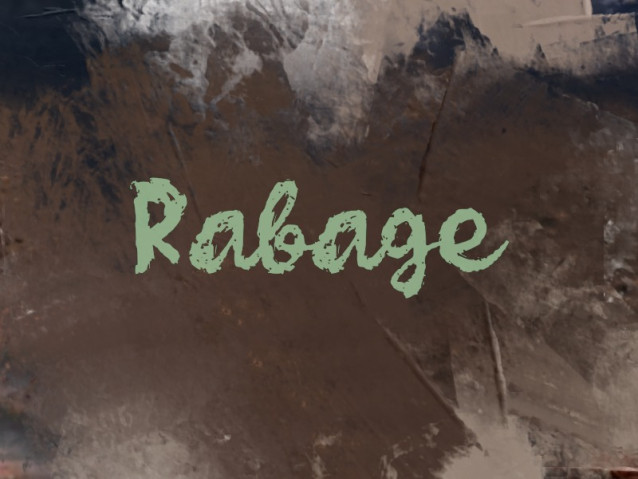
Rabage Font
Rabage Font is a bold, hand-painted brush style font with a raw and expressive feel. Its rough strokes and dynamic texture make it perfect for logos, posters, headlines, social media graphics, and creative branding projects. Rale Brush adds energy, personality, and an artistic touch to any design.